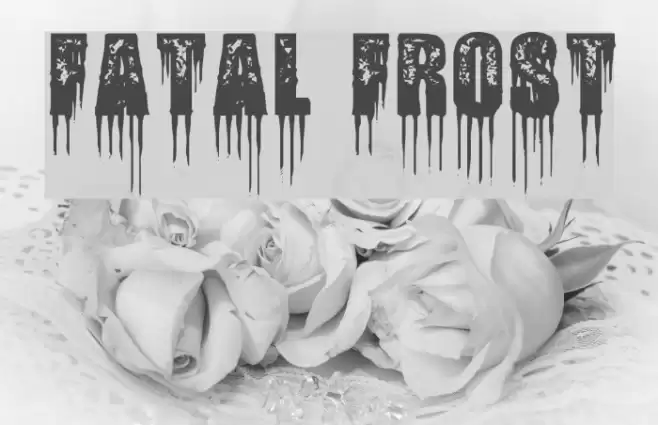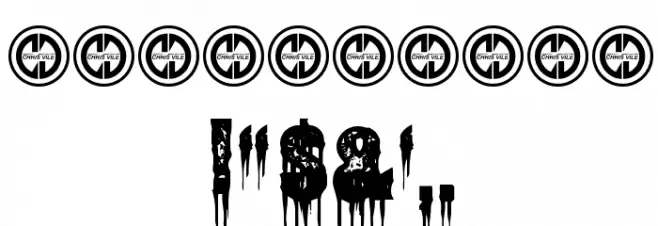
Fatal Frost Font
Fatal Frost Description
This font features a bold, distressed style with a dripping effect that gives it a chilling, frozen appearance. The uppercase and lowercase letters are heavily textured, resembling ice or frost melting and dripping down. The numbers and special characters follow the same design, maintaining a cohesive look throughout. The font's unique aesthetic makes it stand out, with each character appearing as if it's been carved from ice and left to thaw. This design is perfect for projects that require a dramatic, eye-catching typeface with a cold, edgy vibe.
- Proposed Projects: Ideal for horror-themed posters, winter event flyers, edgy branding, or video game graphics.